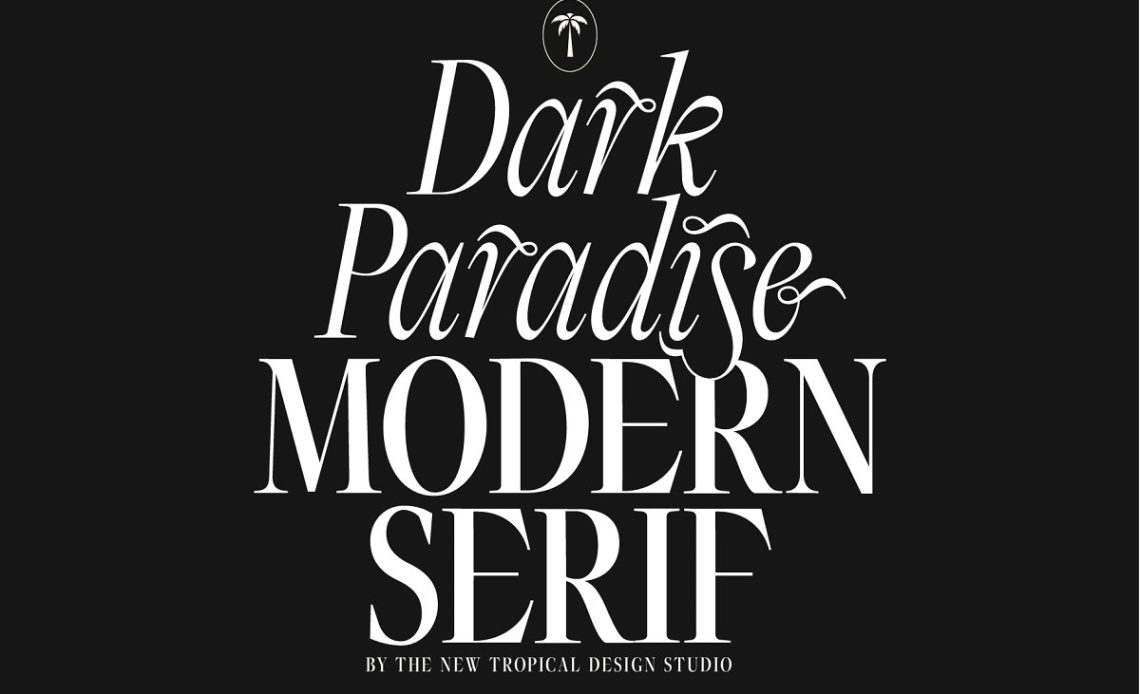
Looking for a modern and edgy serif font for your designs? Look no further than Dark Paradise, created by the talented New Tropical Design Studio. This unique font features a strong, bold serif that contrasts beautifully with an elaborate, ornate italic case. But that's not all – Dark Paradise also offers numerous alternates for the italic case, allowing you to create completely unique designs.